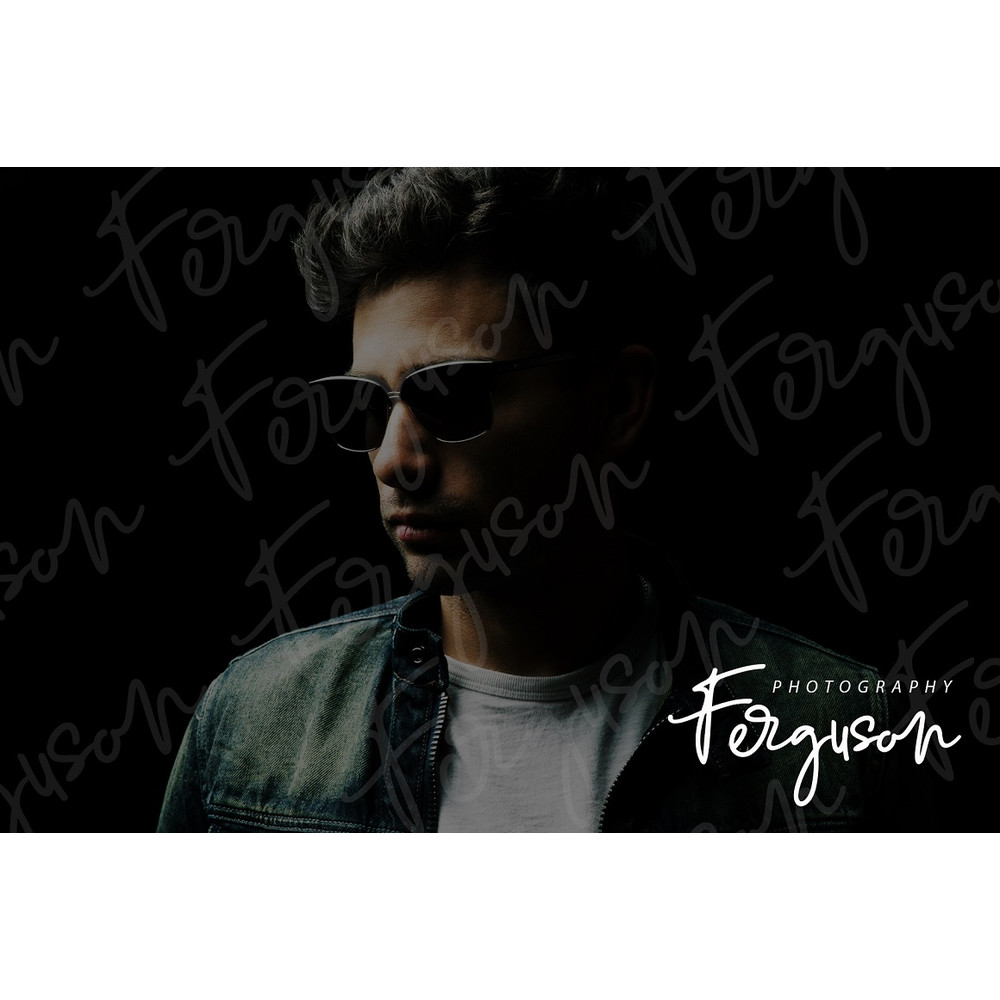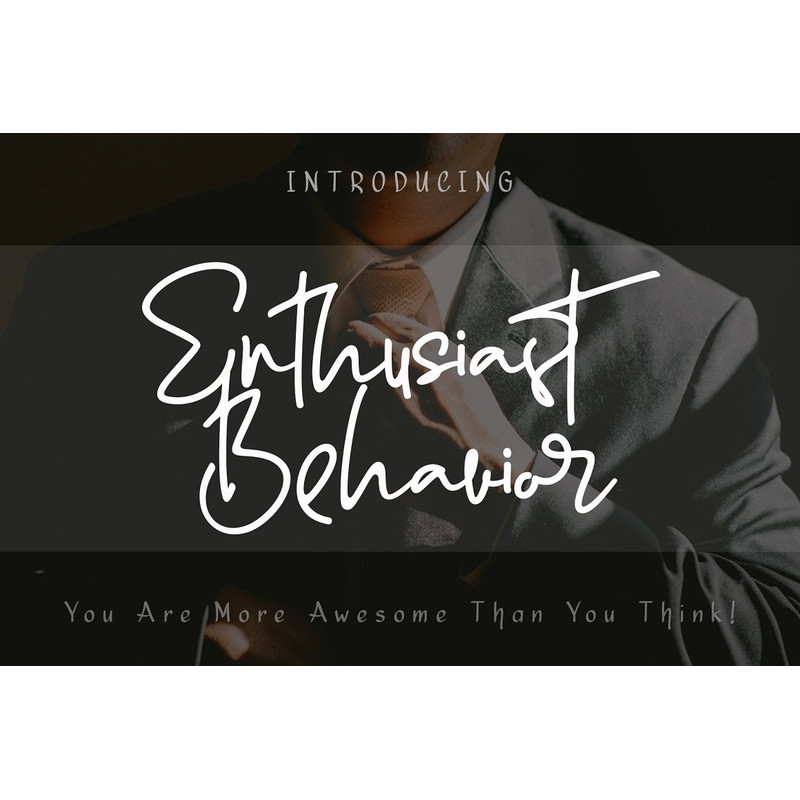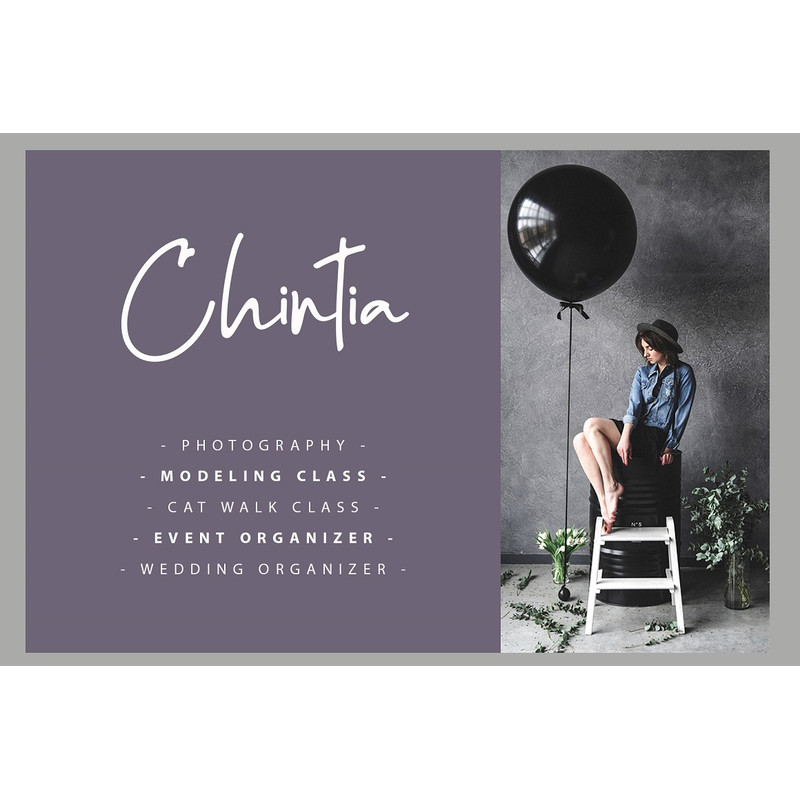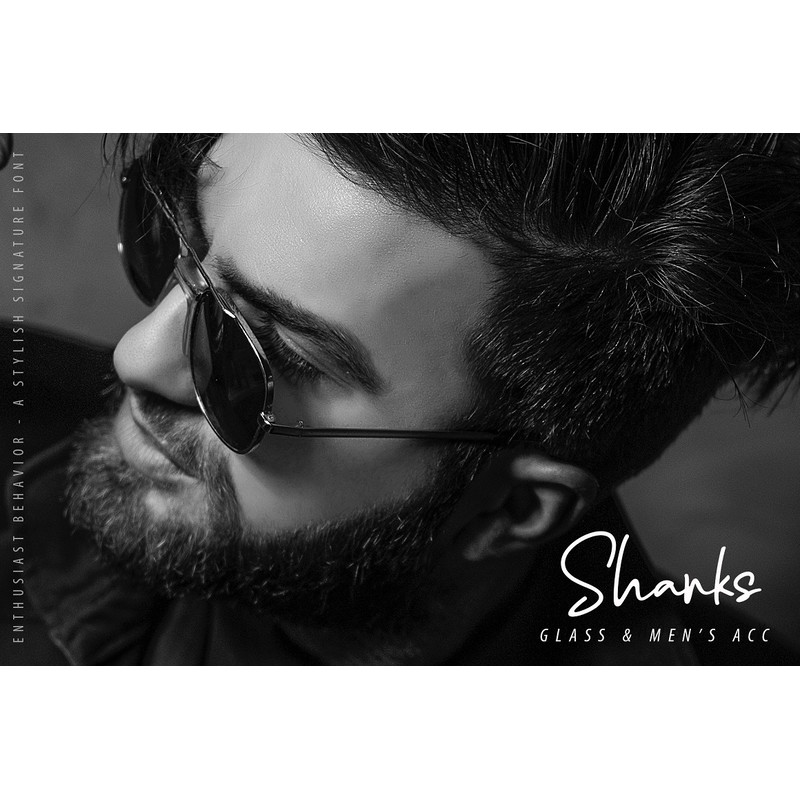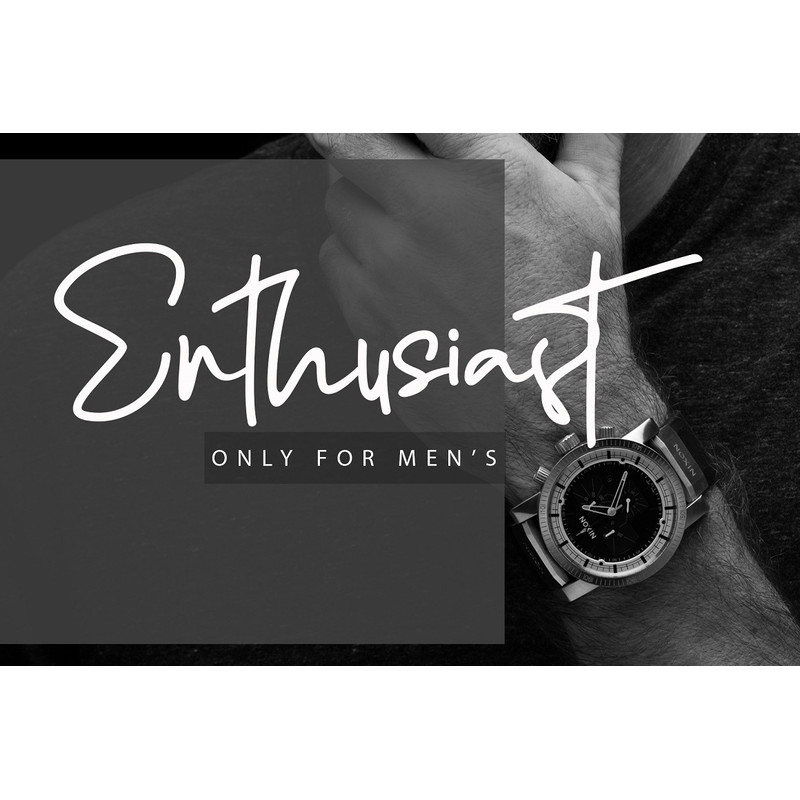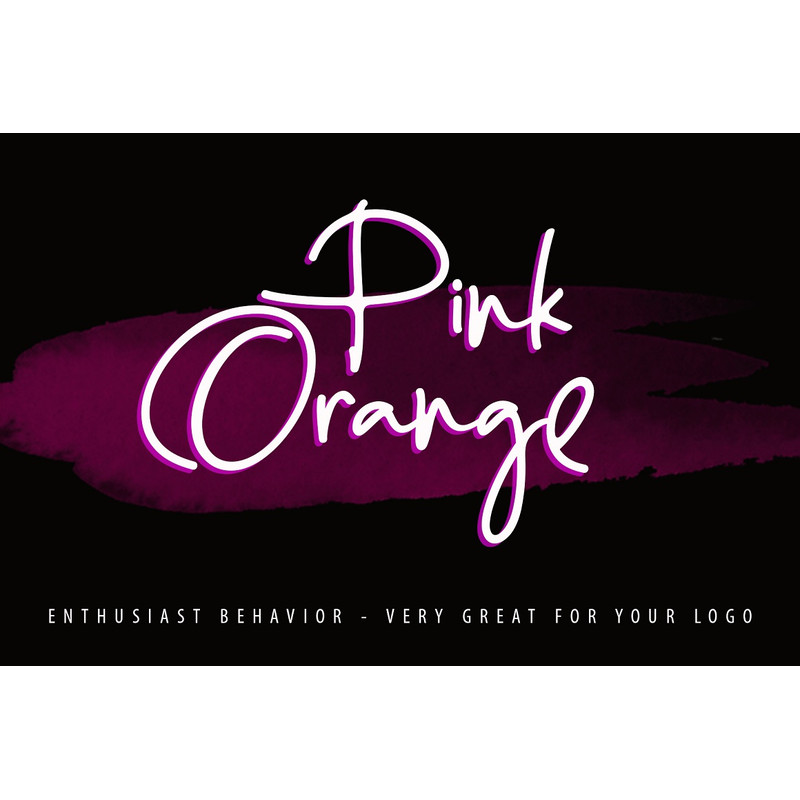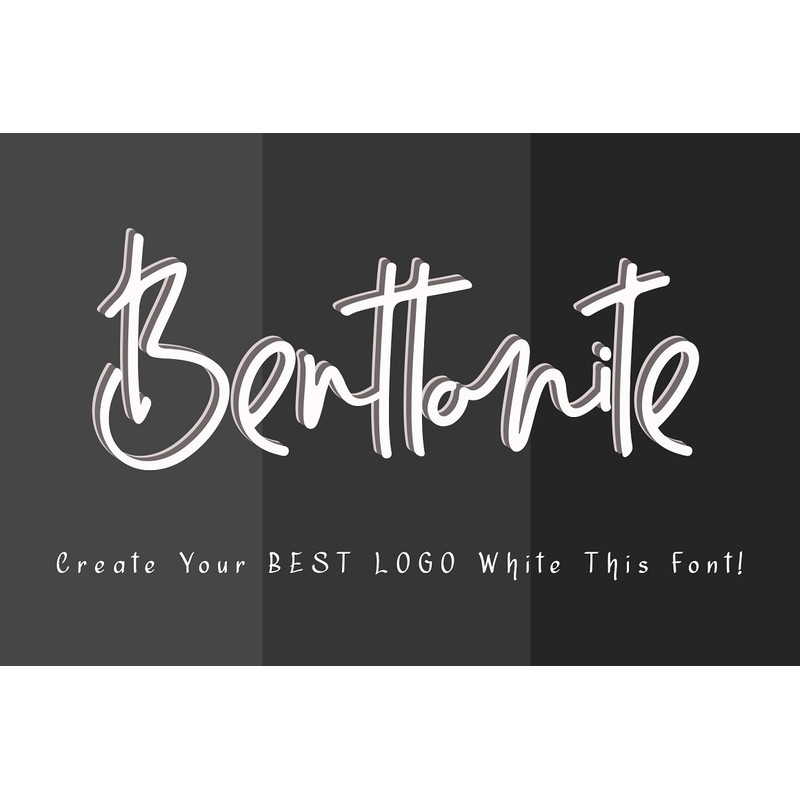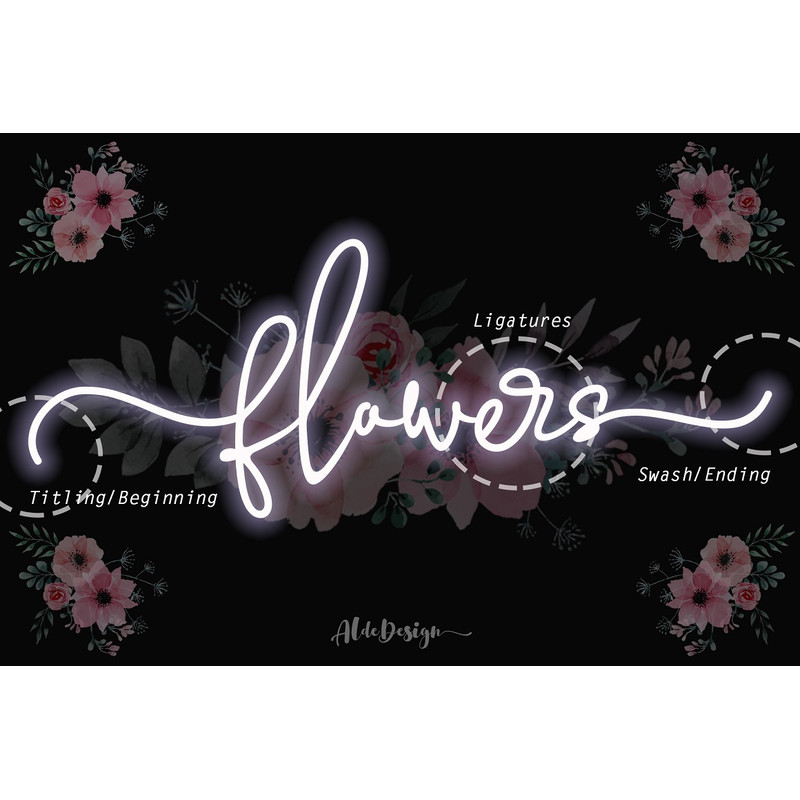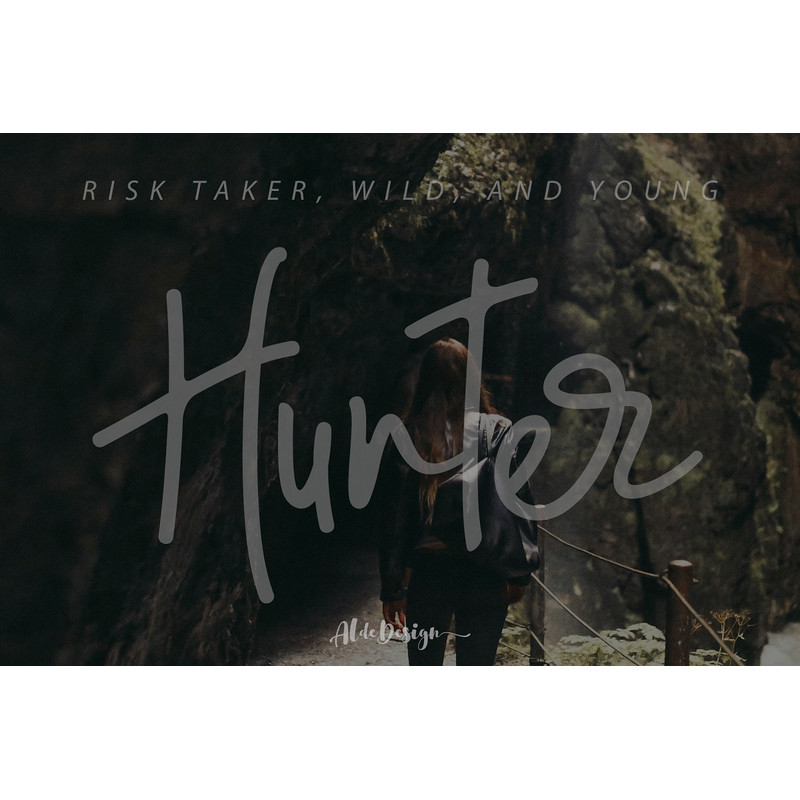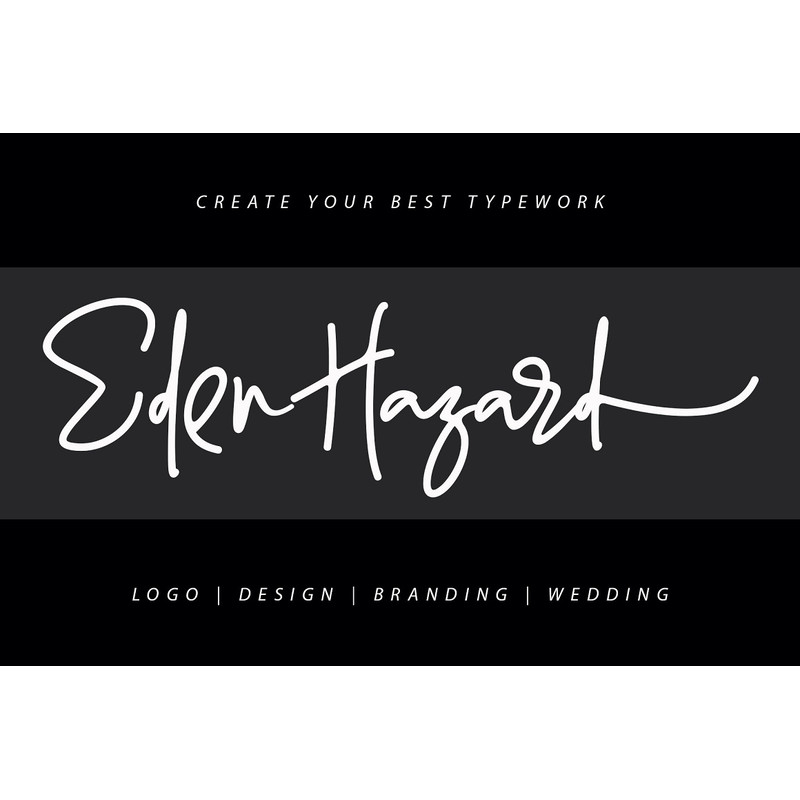
Enthusiast Behavior – A stylish and quirky new signature font script.
Enthusiast Behavior font was created to look as close to a natural handwritten script as possible by including over a lot ligatures, titling, and swash.
This font is for those who want to show something smooth and modern. You may use this font if you want to attract modern buyers.
The font design seems to show that you have a passion in the business and give your love to the products and services you are offered to customers.
Because it is an eye-catching signature font, you can use it for a variety of purposes including design, branding, signature, logo, poster, and many more.